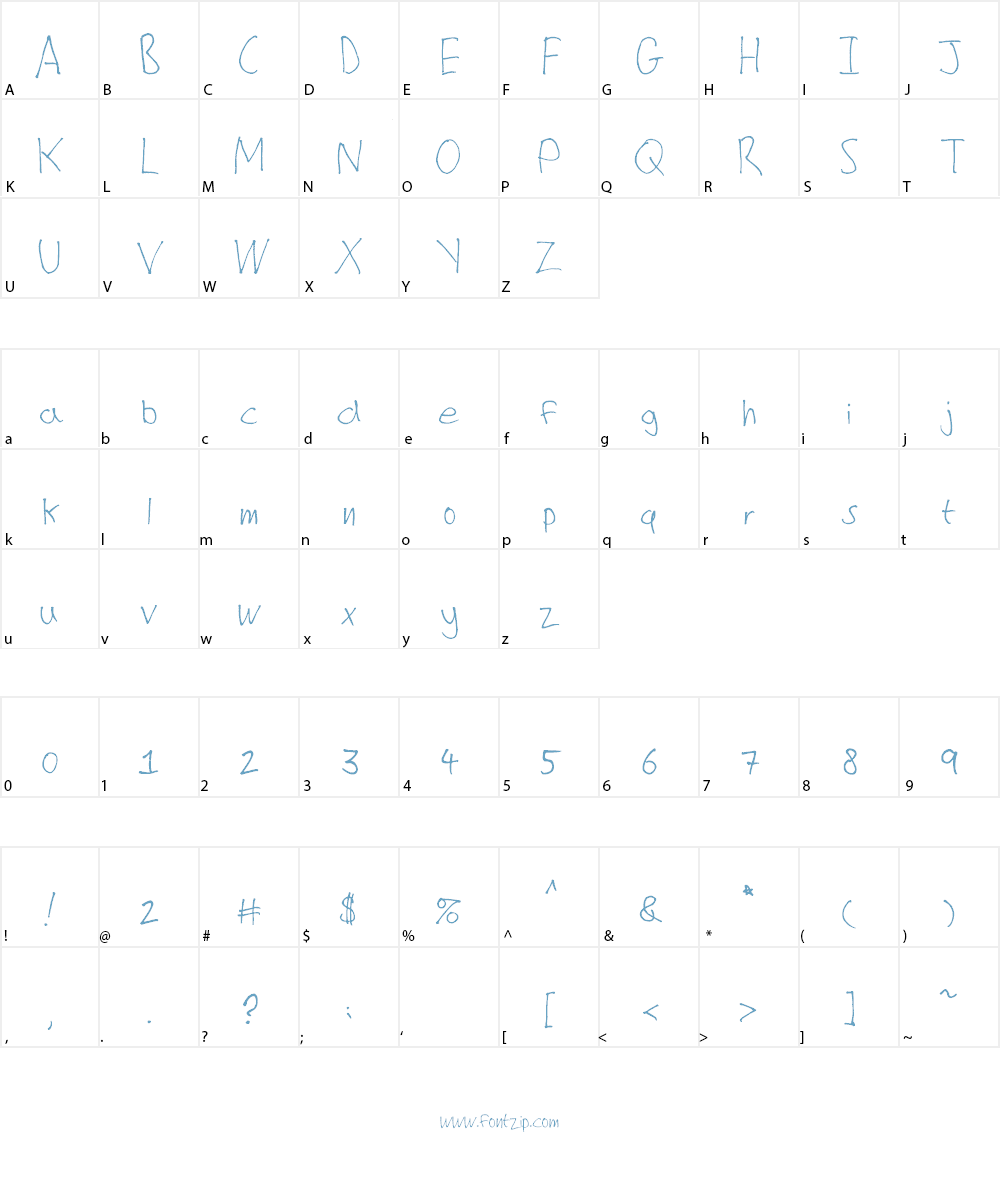
This is a handwriting based font, useful for informal text or suggesting a personal effect of the text.
I’ve drawn in most characters that you’d encounter when producing western text; an example of this is included. Okay, the examples are random gibberish, but it’s an idea of what the typeface looks like with its symbols and characters.